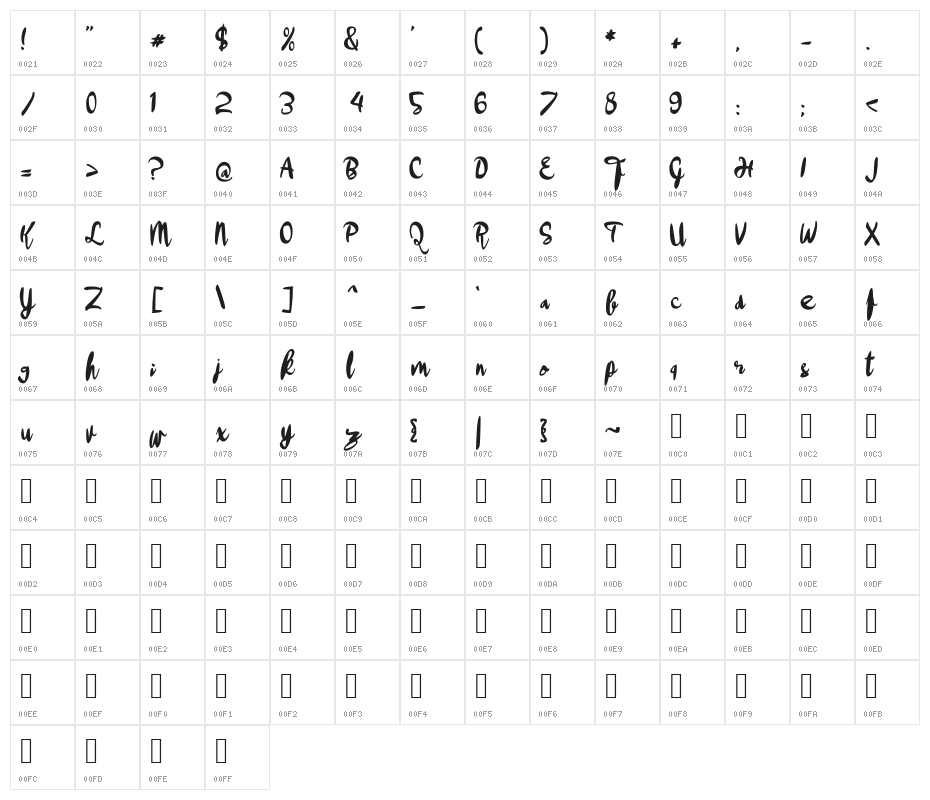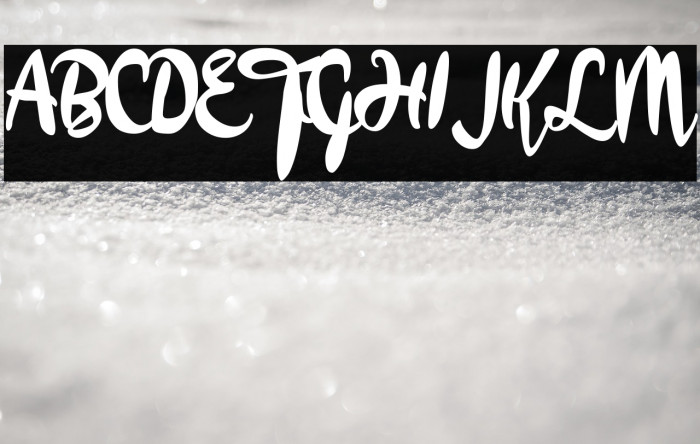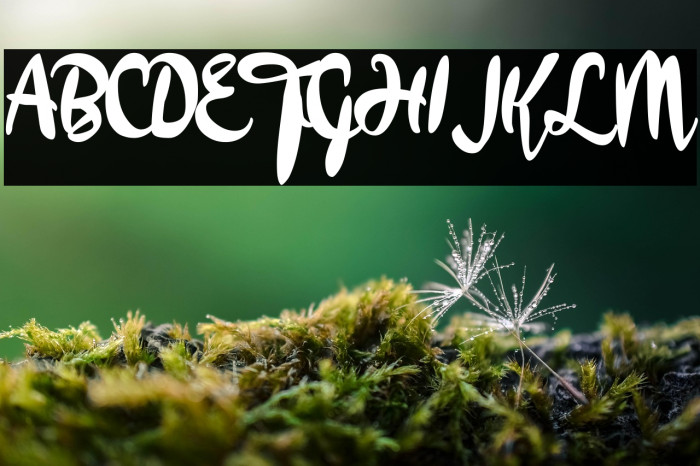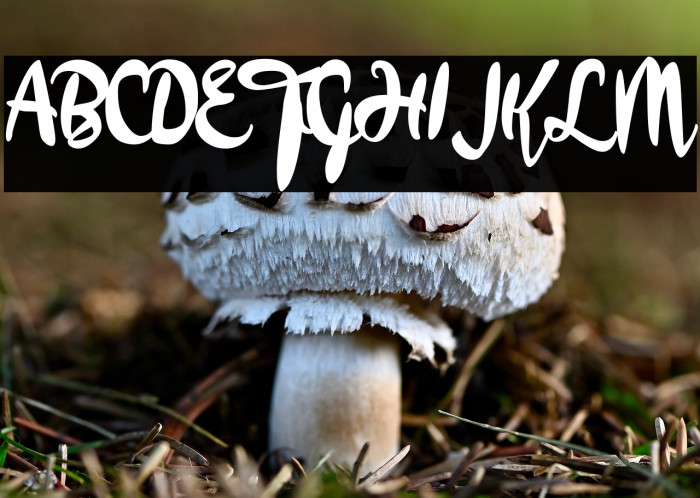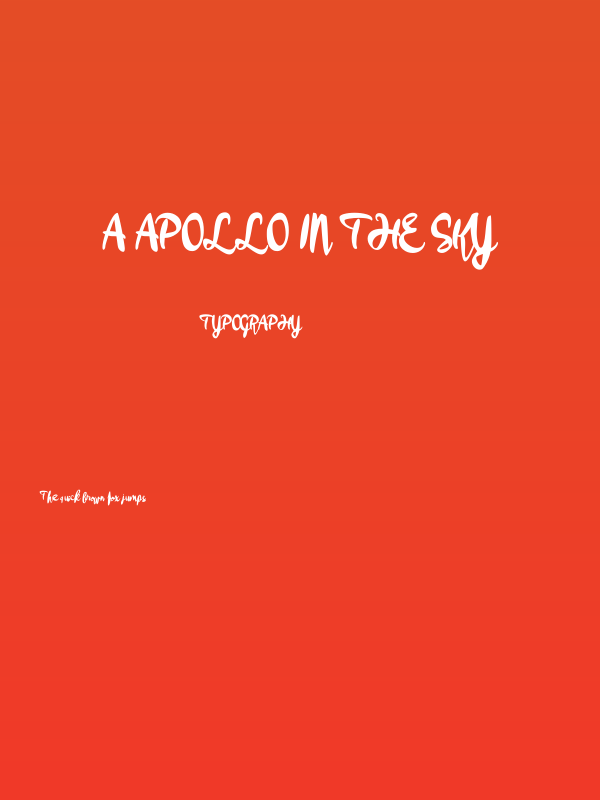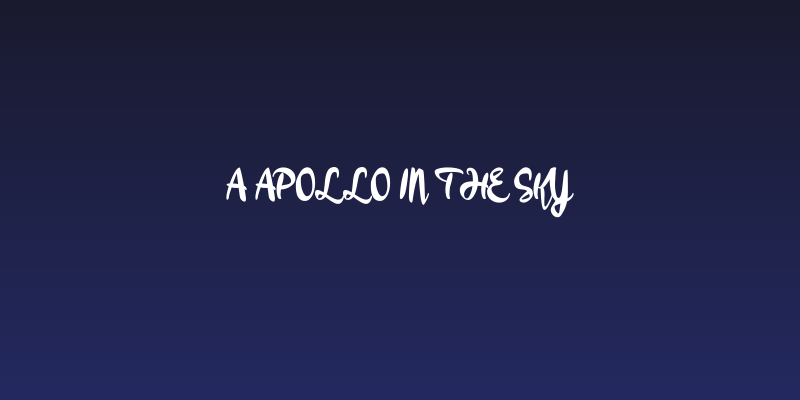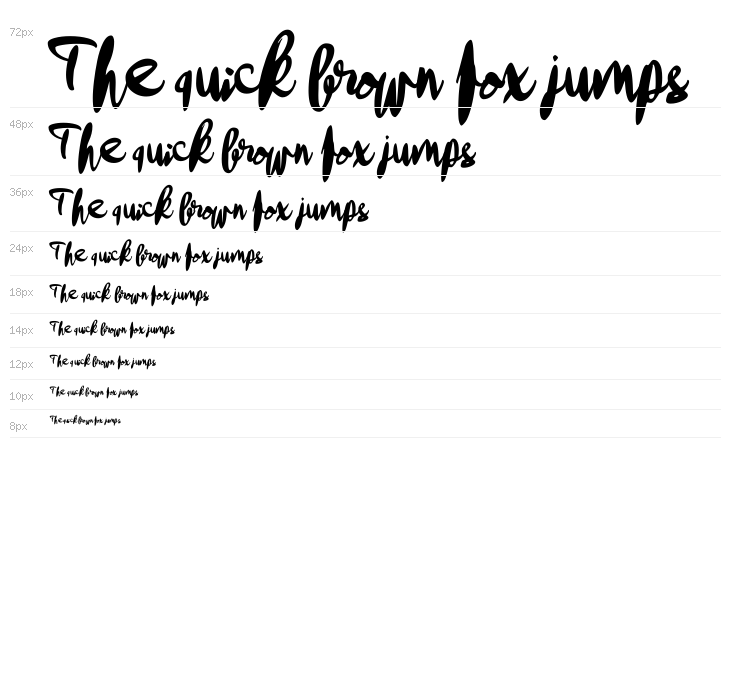
a Apollo in the Sky Font
a Apollo in the Sky Description
This font features a bold, expressive script style with a hand-drawn appearance. The letters are fluid and dynamic, with varying stroke widths that give it a lively and energetic feel. The uppercase letters are particularly striking, with dramatic flourishes and loops that add a sense of movement. The lowercase letters maintain this fluidity, creating a cohesive and harmonious look. Numbers and special characters are designed with the same attention to detail, ensuring consistency across all elements. This font is ideal for projects that require a personal touch or a creative flair.
| Proposed Projects | Ideal for branding, invitations, posters, and any project requiring a personal, artistic touch. |